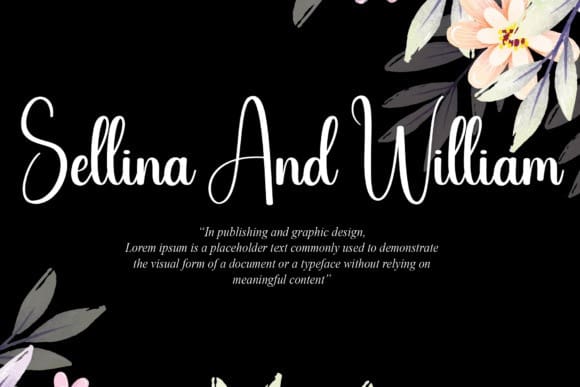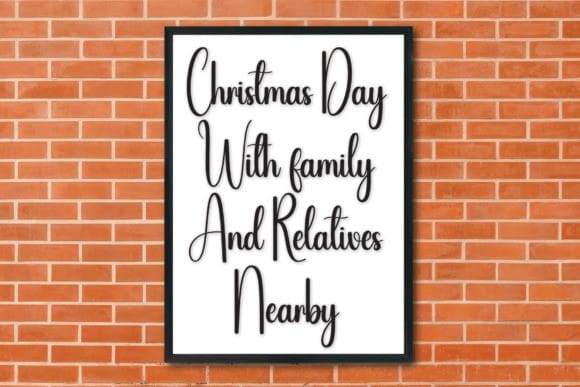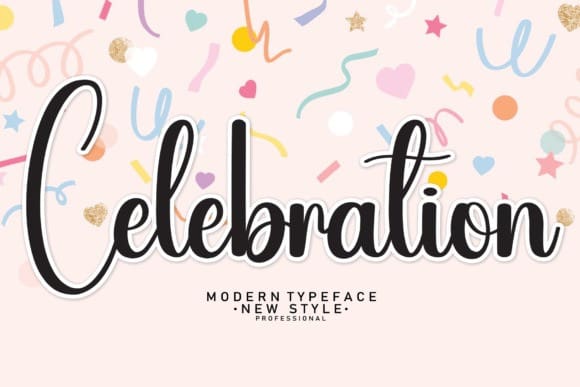
Celebration Script Font
Celebration Script Font, is a fresh and neat handwritten script font. Its casual vibe and friendly charm make it the right choice for a wide range of projects that require a personalized touch.